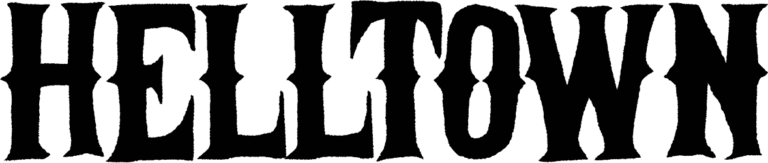
Daughter of a Glitch Font
Take a look at the fascinating traits of this edgy font, tall pointy, and jagged design that will make your content stand out in a crowd. This font might be unreadable due to its decorative design.
The Daughter of a Glitch font with its unique and surrey design, despite the lack of lowercase letters, can make a great impact on designing headlines, posters, branding, TV shows, and more.